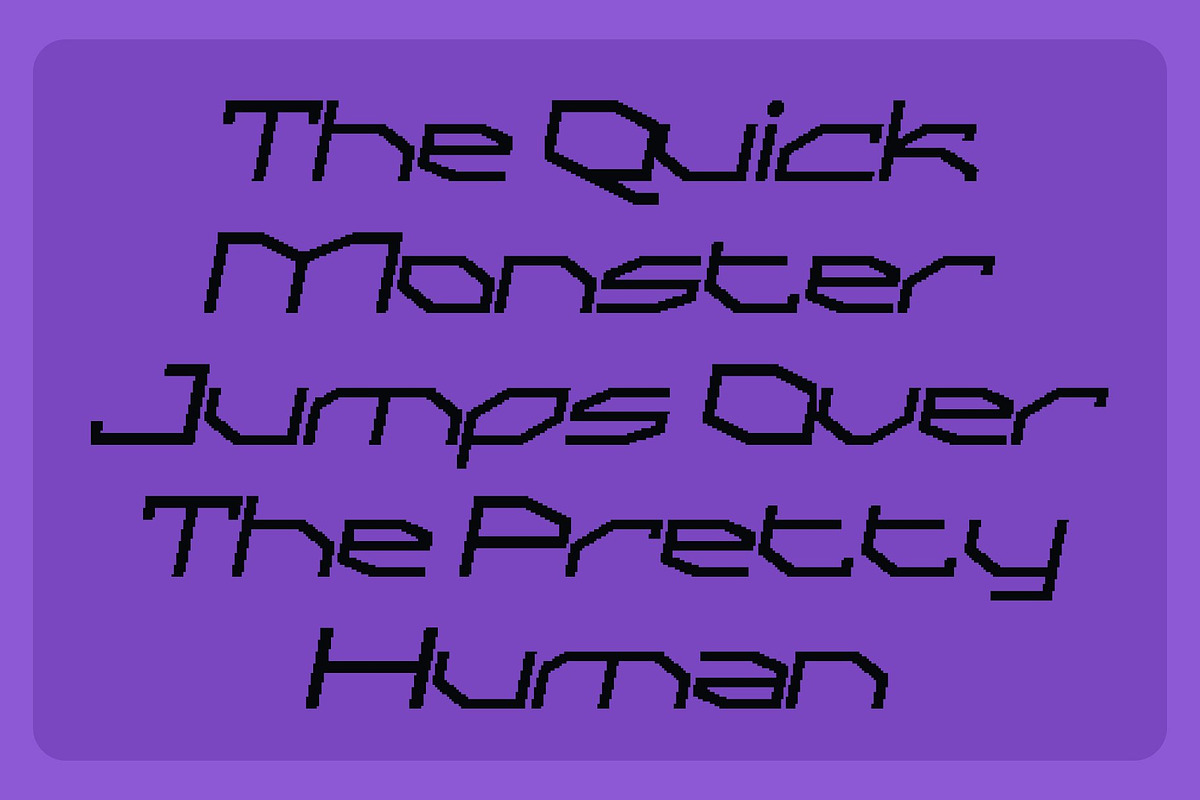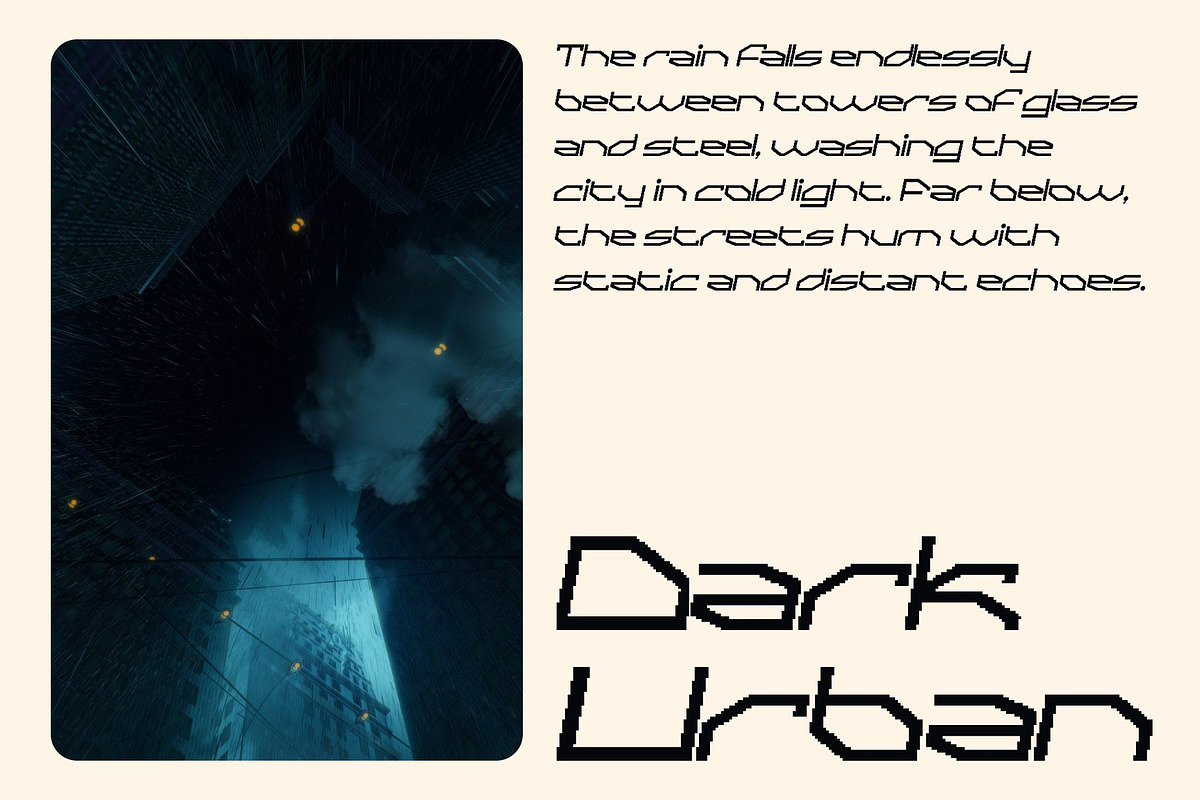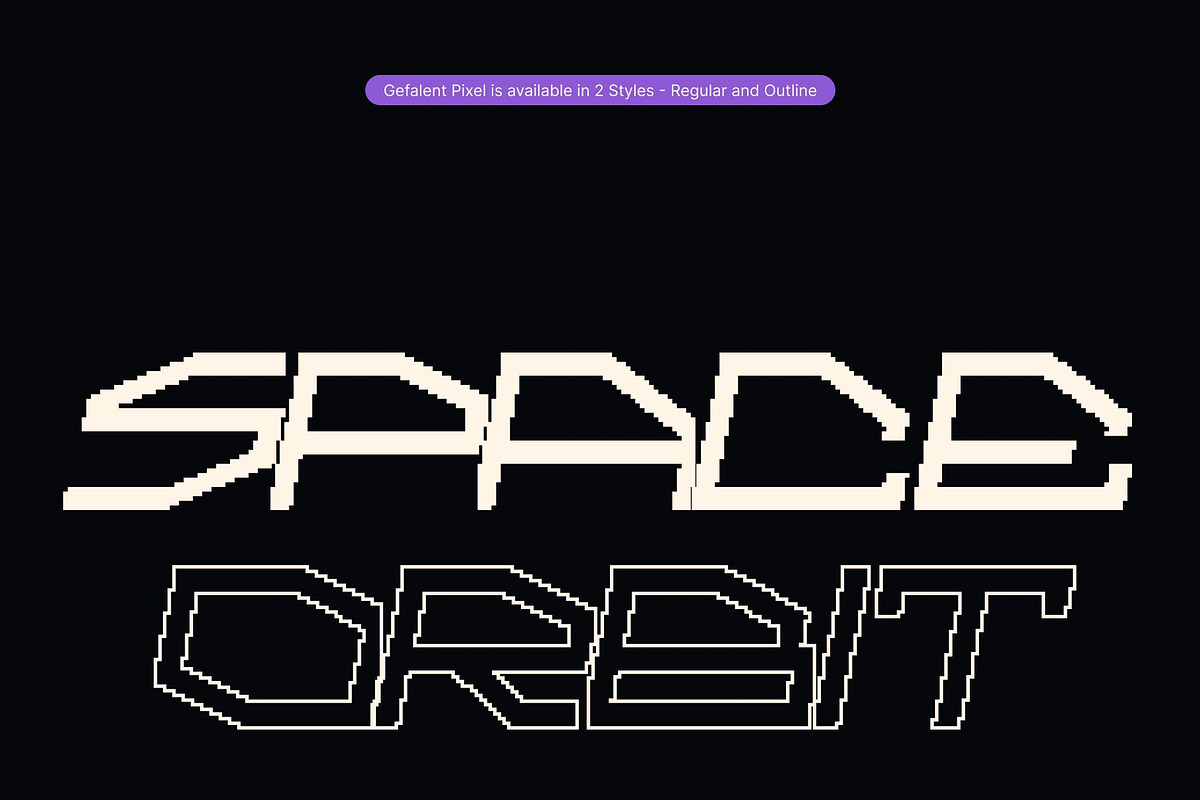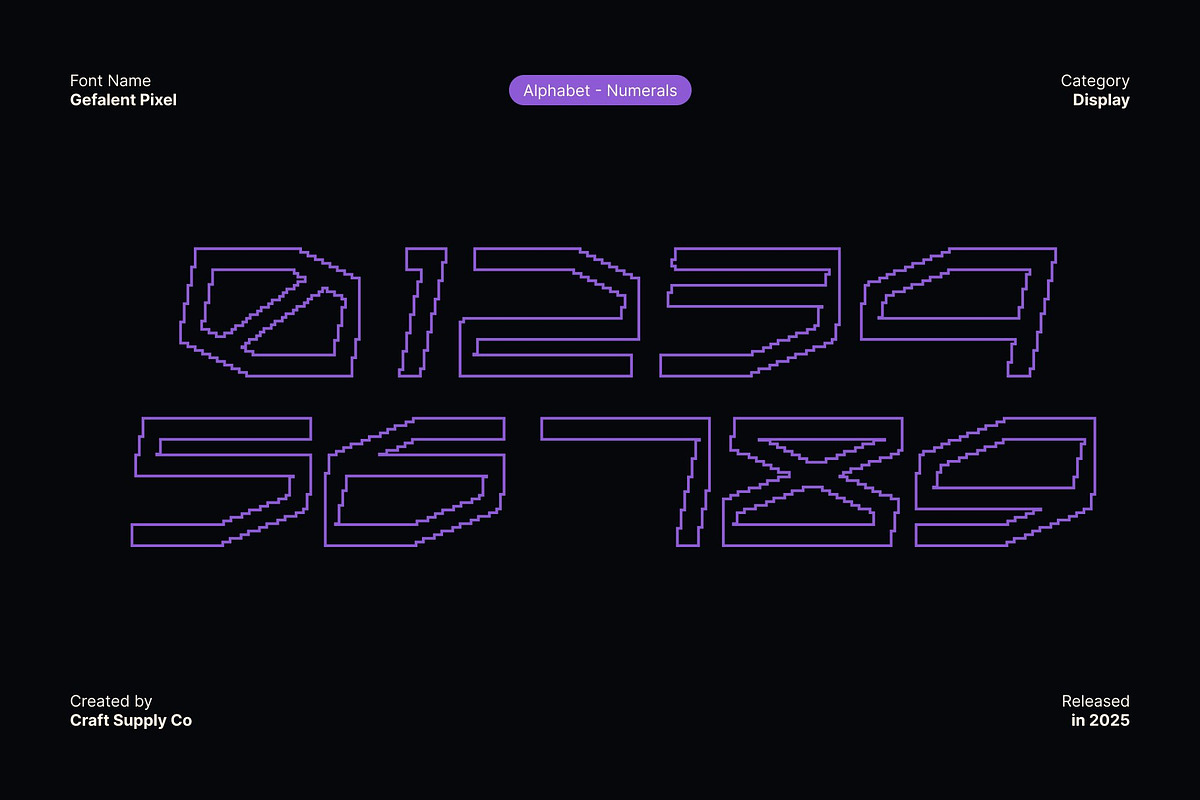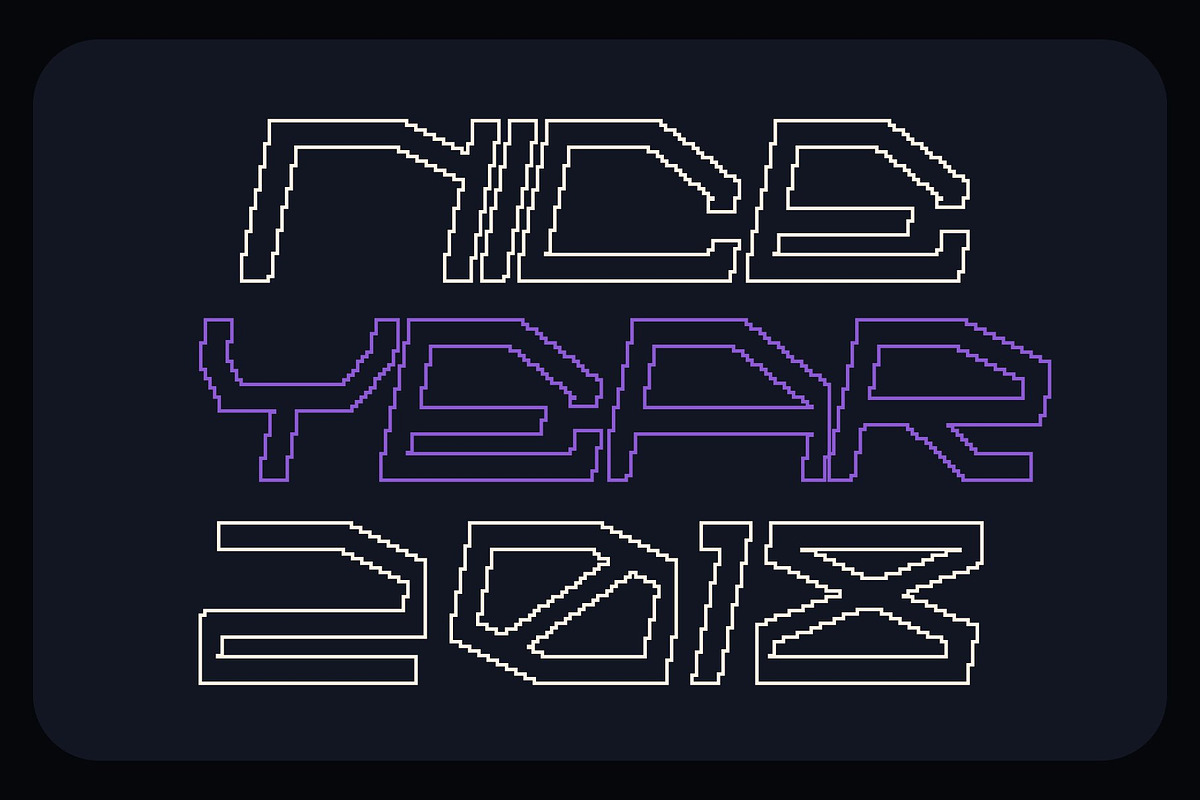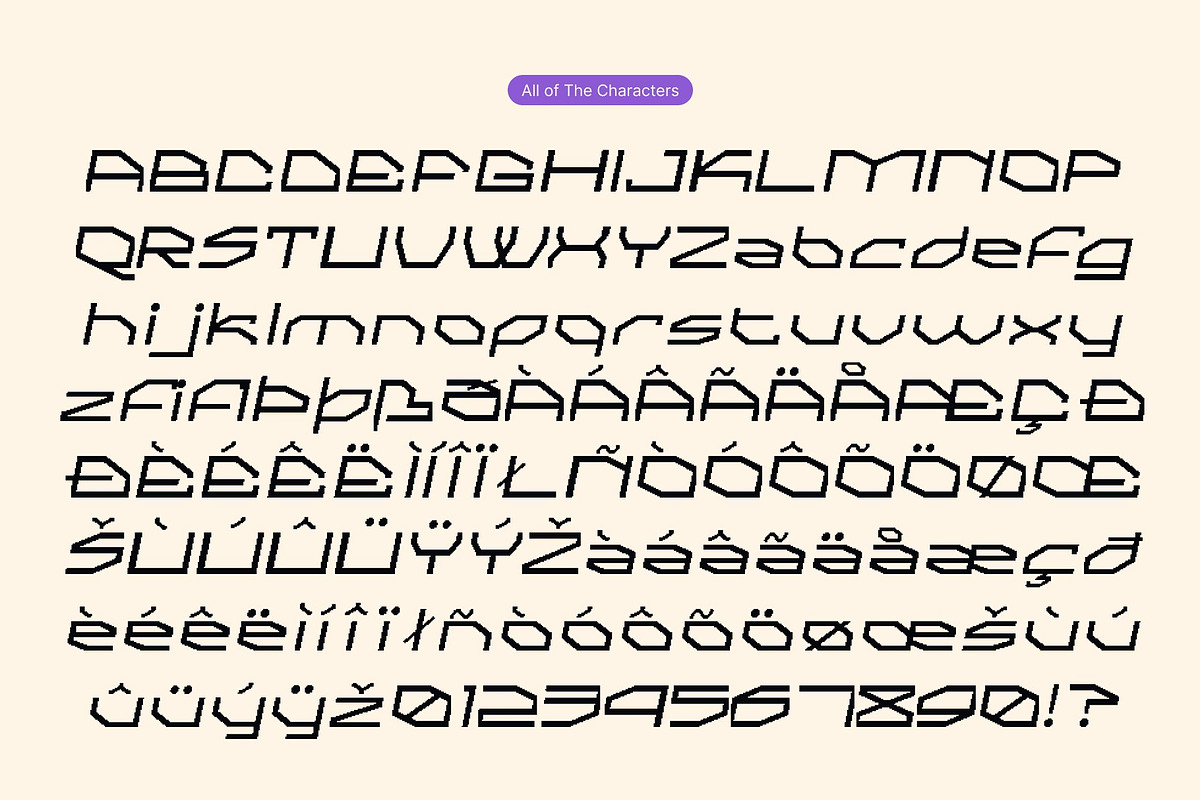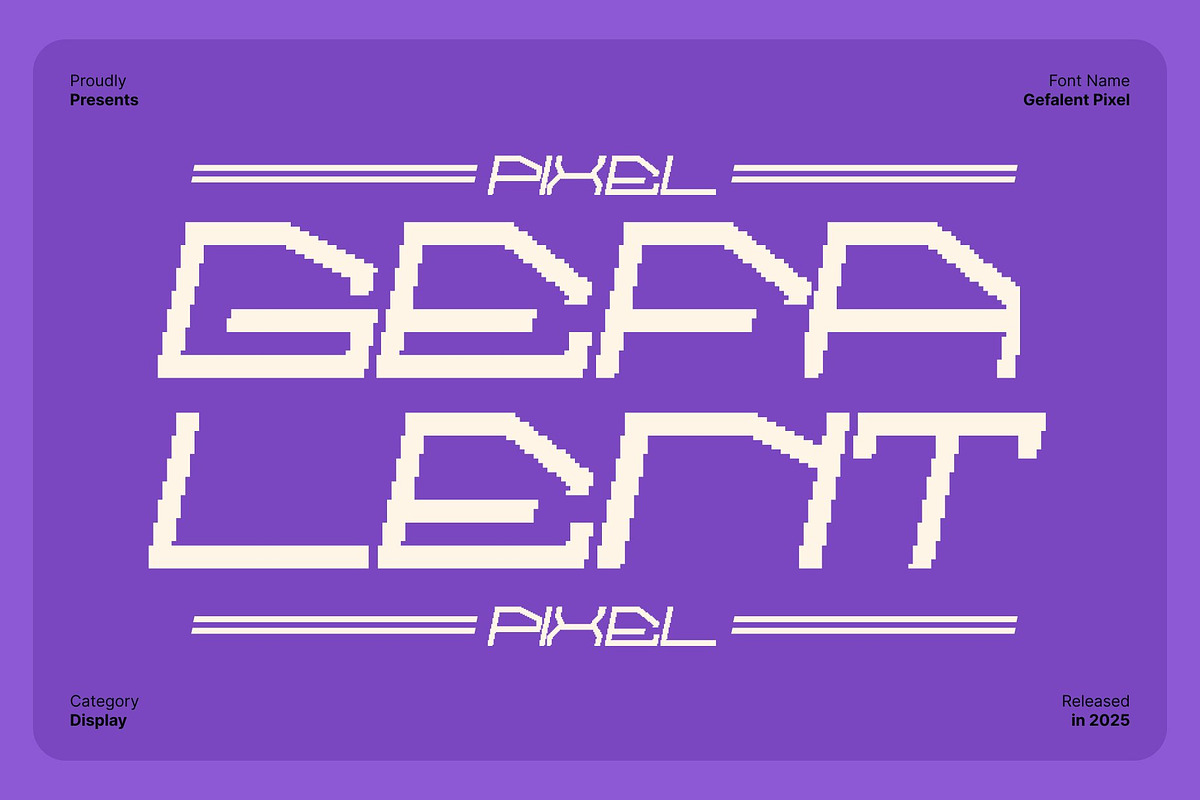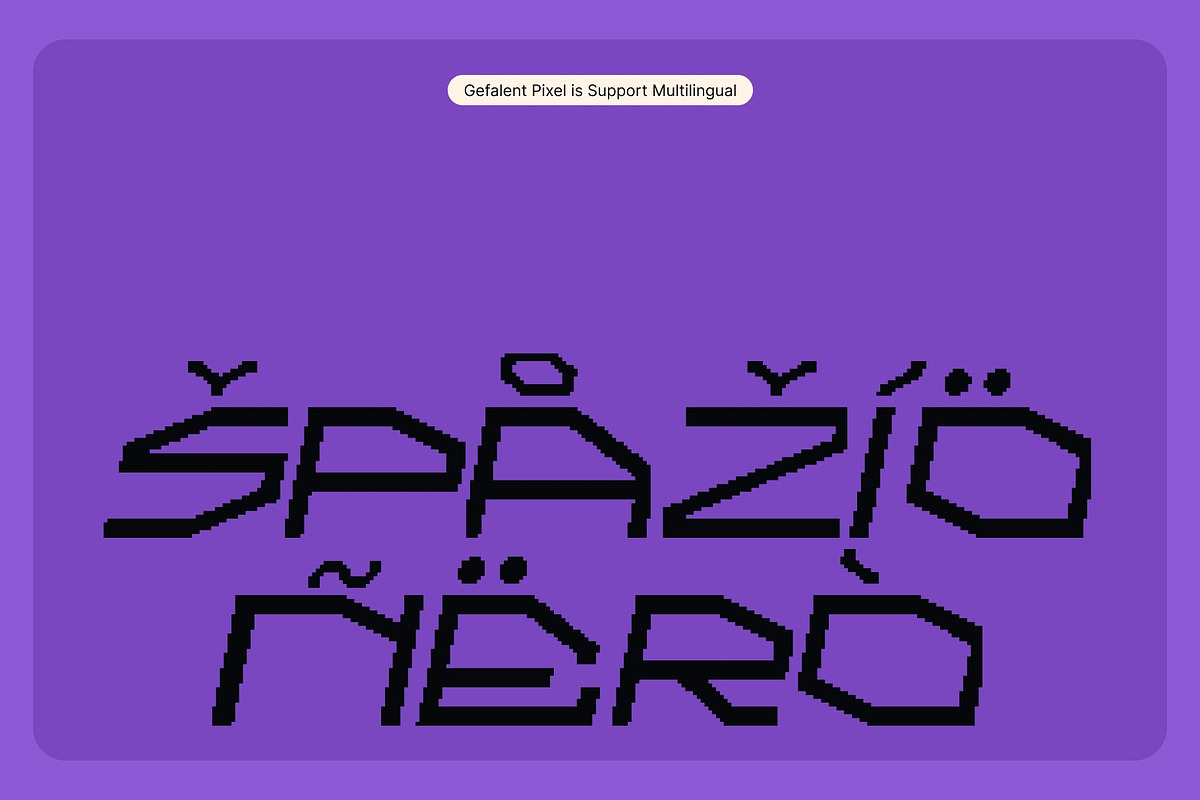
Gefalent Pixel
Gefalent Pixel – Futuristic Display Font with Bold Pixel Energy
Strong Digital Forms for a High-Tech Aesthetic This is a futuristic display font designed to deliver an unmistakably modern and digital impression. Its pixel-based construction creates a sharp, structured look that instantly evokes advanced technology, virtual worlds, and sci-fi environments.
Pixel Structure for Cutting-Edge Visual Impact The pixel style enhances the futuristic tone, adding a mechanical and digital texture that feels both innovative and dynamic. This distinctive pixel grid gives the font its powerful personality perfect for projects that want to stand out with a high-tech, cyber, or game-inspired atmosphere.
Ideal for Sci-Fi, Gaming, and Tech-Driven Designs This font excels in display settings where a futuristic presence is essential. Whether used for game titles, UI elements, posters, event branding, logos, or digital interfaces, the font brings an electrifying, ultra-modern feel that immediately captures attention.
Futuristic, and Visually Striking With its pixel-packed shapes and commanding structure, offers a typeface that looks ahead. It’s the perfect choice for designers aiming to create cutting-edge visuals that feel innovative, energetic, and unmistakably futuristic.
- Gefalent Pixel Regular
- Gefalent Pixel Outline